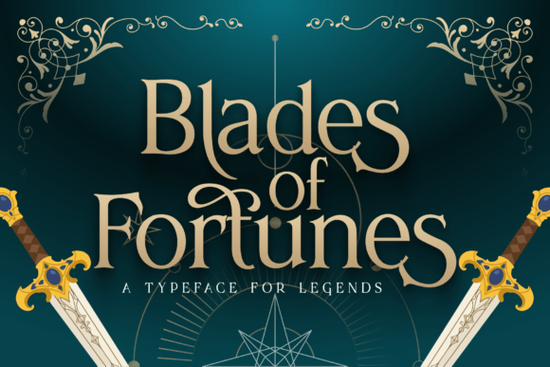
Looking for a serif typeface that feels dramatic without being over the top? The Blades of Fortunes Font is a display serif with sharp contrasts and elegant swashes that work beautifully for fantasy branding, book covers, and cinematic layouts. If you're a designer, crafter, or small business owner searching for a typeface that adds depth and character to your work, this font deserves a closer look.
What Makes Blades of Fortunes Different from Other Serif Fonts?
Most serif fonts lean either too traditional or too plain for bold creative projects. Blades of Fortunes sits in a sweet spot it carries the weight and structure of a classic serif but adds dramatic stroke contrast, pointed terminals, and decorative swashes that give it a mysterious, almost storybook quality.
Compared to something like the refined styling of Behal, which works well for clean editorial layouts, Blades of Fortunes leans more theatrical. Think dark fantasy, RPG aesthetics, or luxury packaging with an edge. The sharp thicks and thin strokes create strong visual tension, making headlines and logos instantly more memorable.
What Projects Is This Font Best Suited For?
This typeface shines in projects where you want to create atmosphere. Here are some practical use cases:
- Fantasy book covers titles, chapter headers, and spine text
- RPG and tabletop game branding logos, character sheets, packaging
- Cinematic title cards video intros, YouTube thumbnails, posters
- Event invitations themed parties, Halloween designs, mystery events
- Print-on-demand products t-shirts, mugs, and wall art with bold typography
- Social media graphics Instagram quotes, story templates, brand announcements
If you're building a brand identity for something dark, elegant, or adventurous, this font does a lot of the heavy lifting for you.
How Does It Compare to Other Display Serifs?
Choosing the right display serif depends on the mood you're going for. Elora brings a softer, more romantic feel great for wedding invitations and feminine branding. Meanwhile, Secth Vought has a heavier, more grounded presence that suits corporate or editorial work.
Blades of Fortunes occupies a different lane entirely. Its swashes and high-contrast strokes give it personality that leans dramatic and adventurous. If you need a font that tells a story before anyone reads the words, this is the one.
Does It Pair Well with Other Fonts?
Yes and pairing it smartly is key. Since Blades of Fortunes has a lot of visual detail, it works best as a headline or display font. For body text, pair it with something clean and understated. A simple sans-serif or a lighter serif will balance out the drama.
Some pairing ideas:
- Headlines: Blades of Fortunes
- Subheadings: A medium-weight sans-serif like Montserrat or Raleway
- Body text: A clean serif like Georgia or a similar legible option
This layered approach keeps your designs professional while letting the display font do its job.